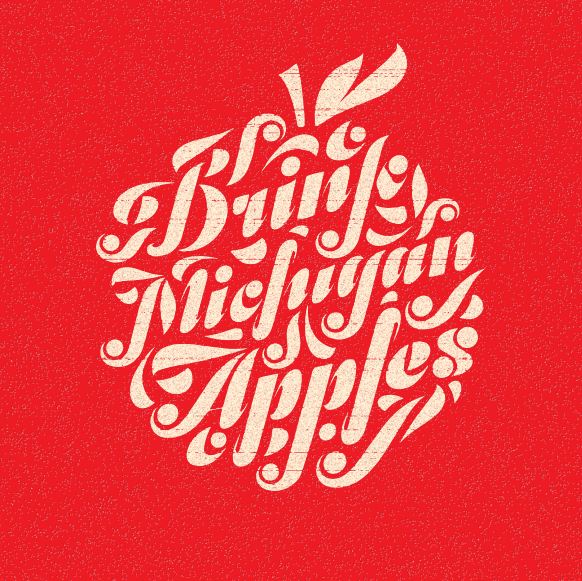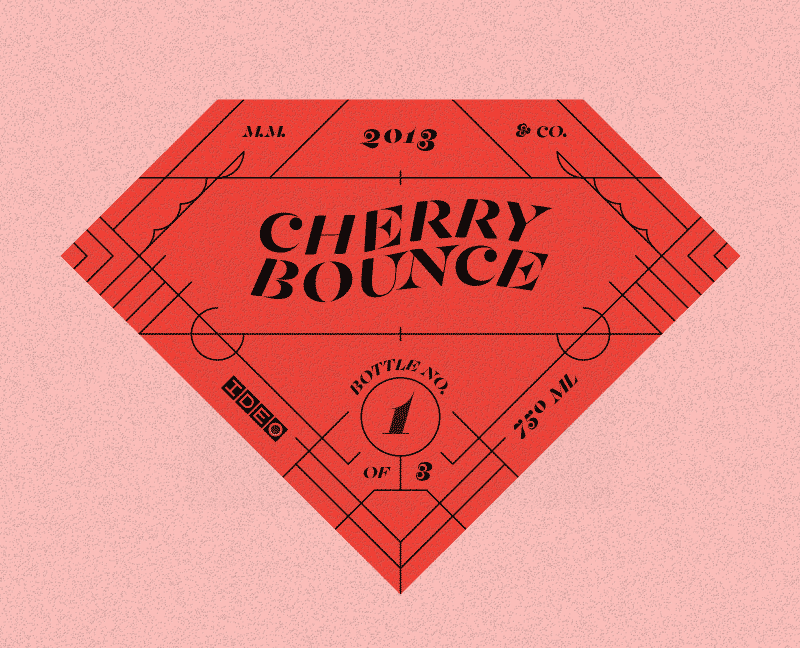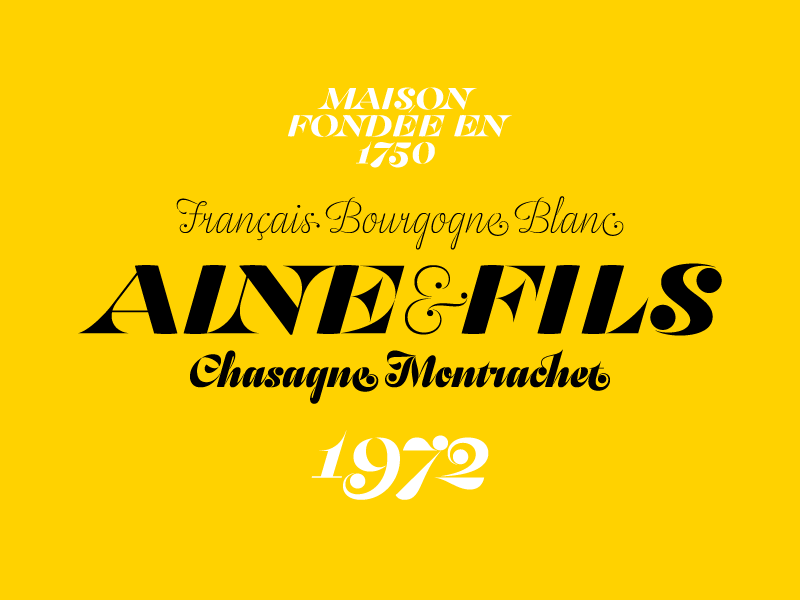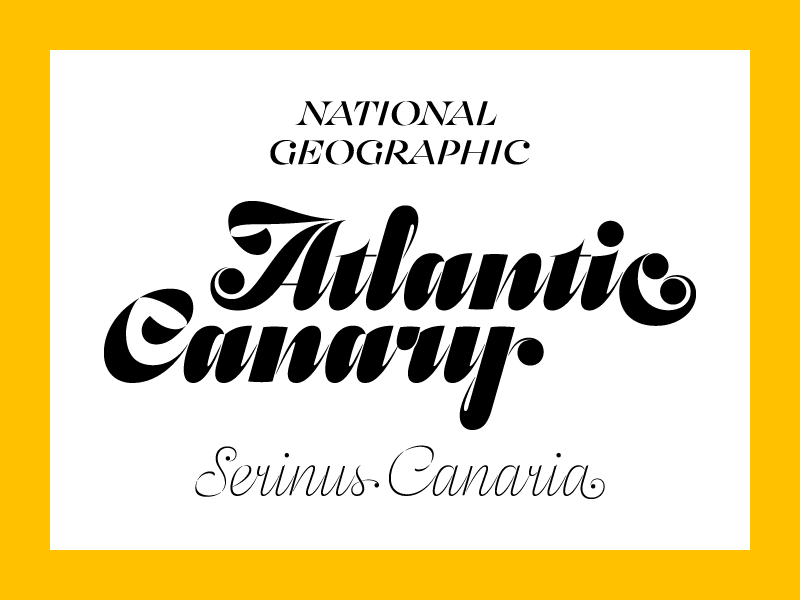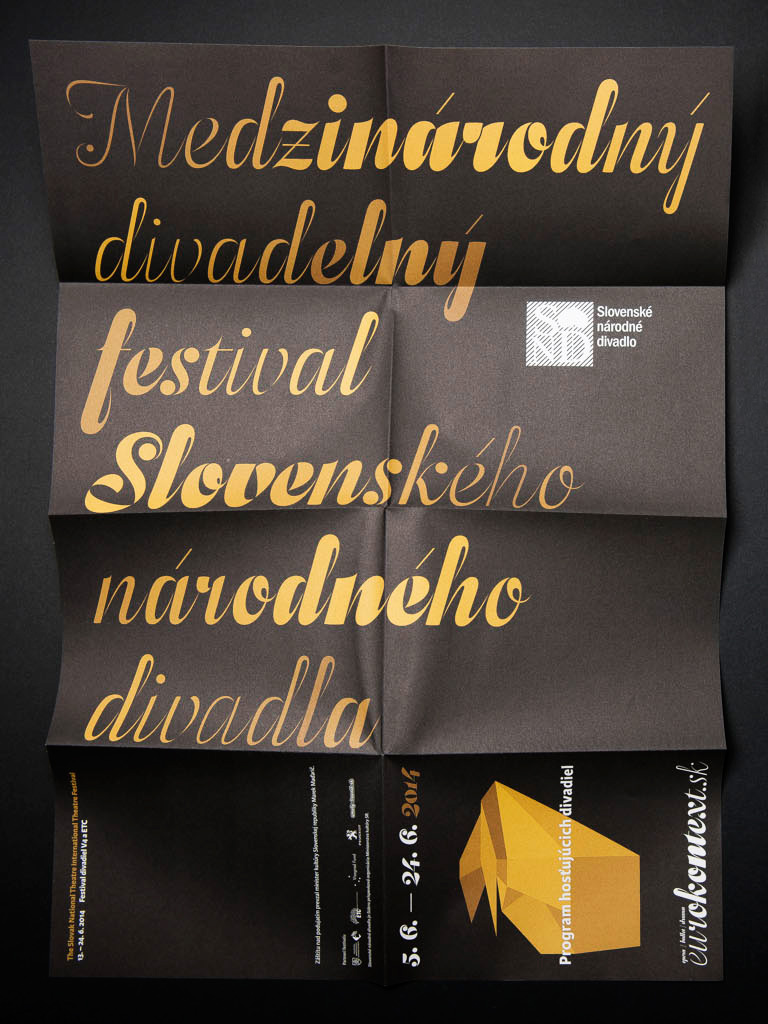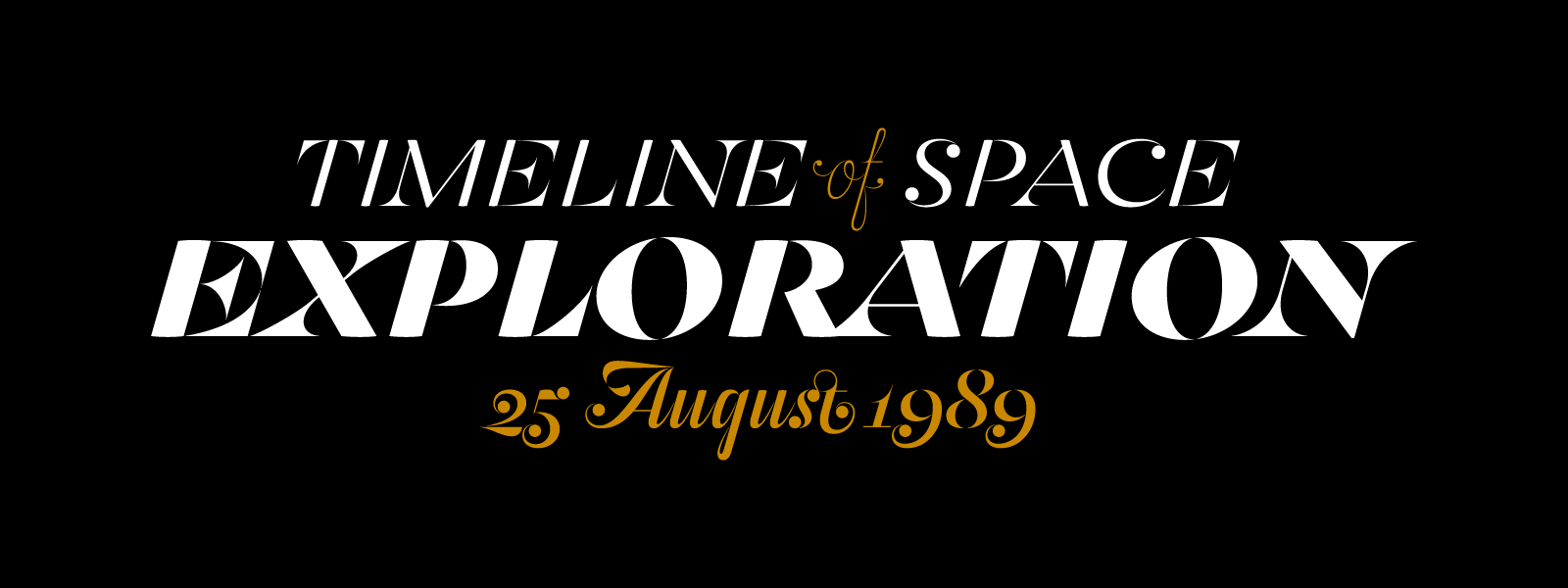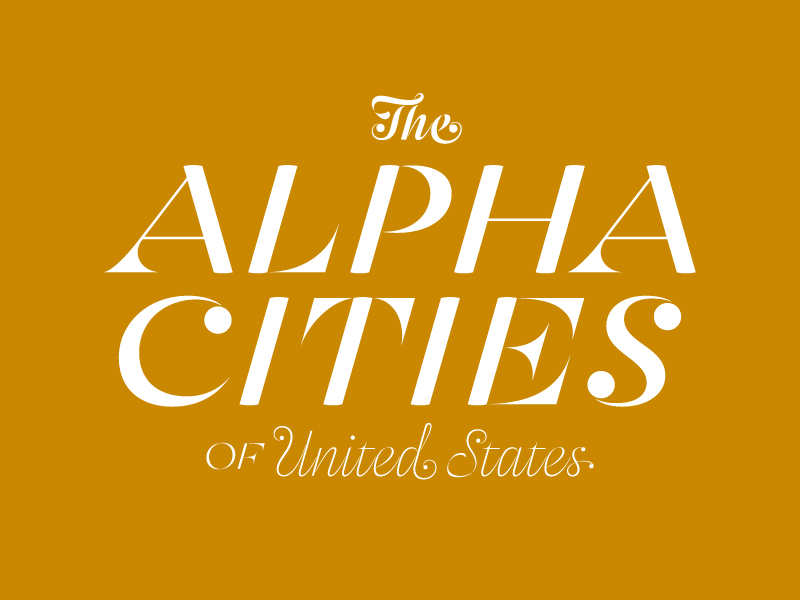
Discretionary Ligatures Regulardockdock
Initial Forms RegularannoannoAlso via Stylistic Set 1
Final Forms MediumdominidominAlso via Stylistic Set 2
Decorative script display typeface with detached strokes and ball terminals.
Odesta is an elegant, ornamental script typeface with ball terminals primarily intended for display use consisting of 7 styles ranging from Hair to Black, with very high contrast, narrow width, and medium x-height.
Odesta supports Basic Latin and Extended Latin and covers over 100 languages. With total of 983 glyphs, it includes the default set of proportional oldstyle figures along with proportional lining figures, superscript figures, subscript figures, and fractions for advanced numerical setting. Additional features like stylistic set 4–6, standard ligatures, discretionary ligatures, small capitals, all small capitals, titling alternates, swashes, initial forms, final forms, and subscript figures allow for further customization and versatility.